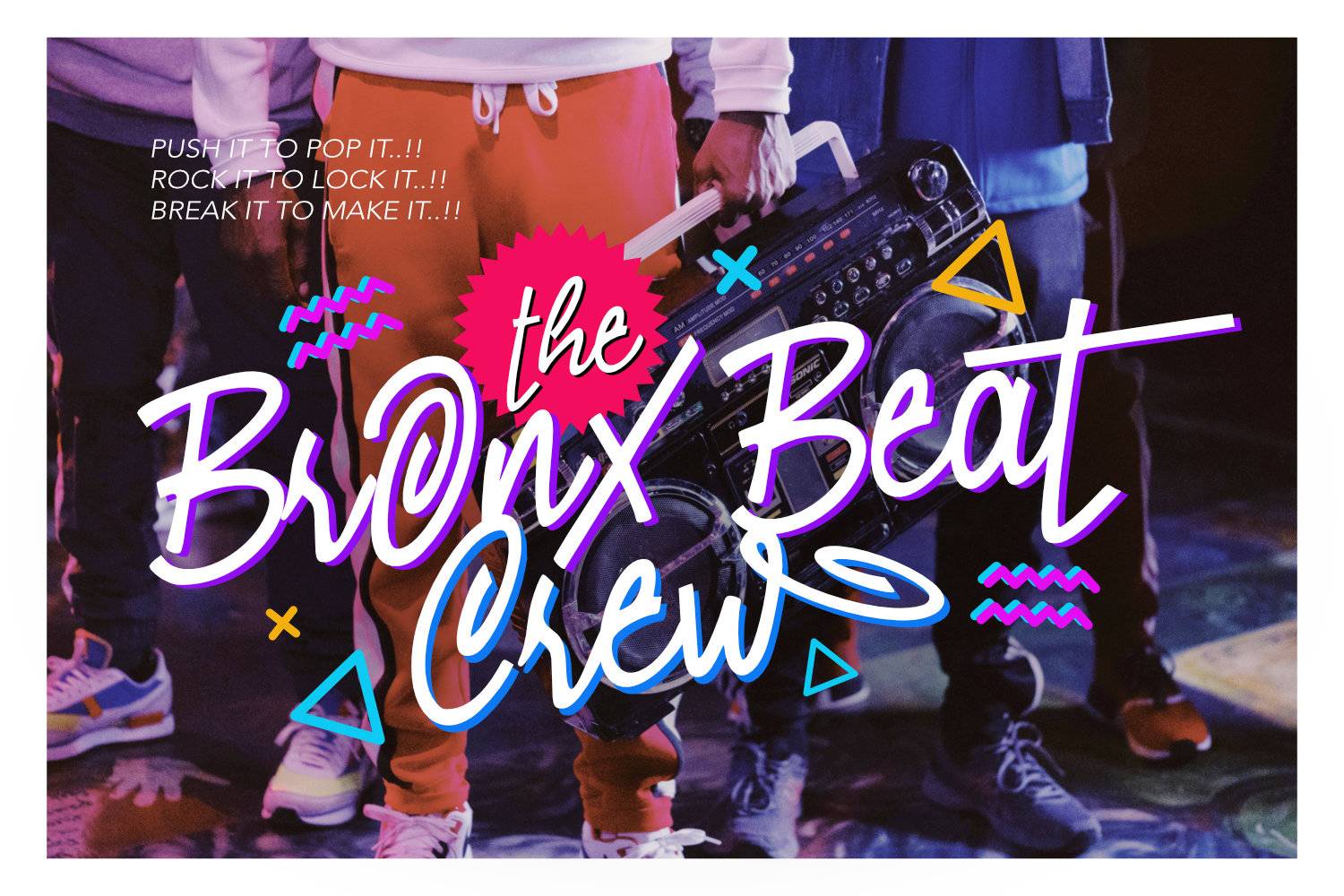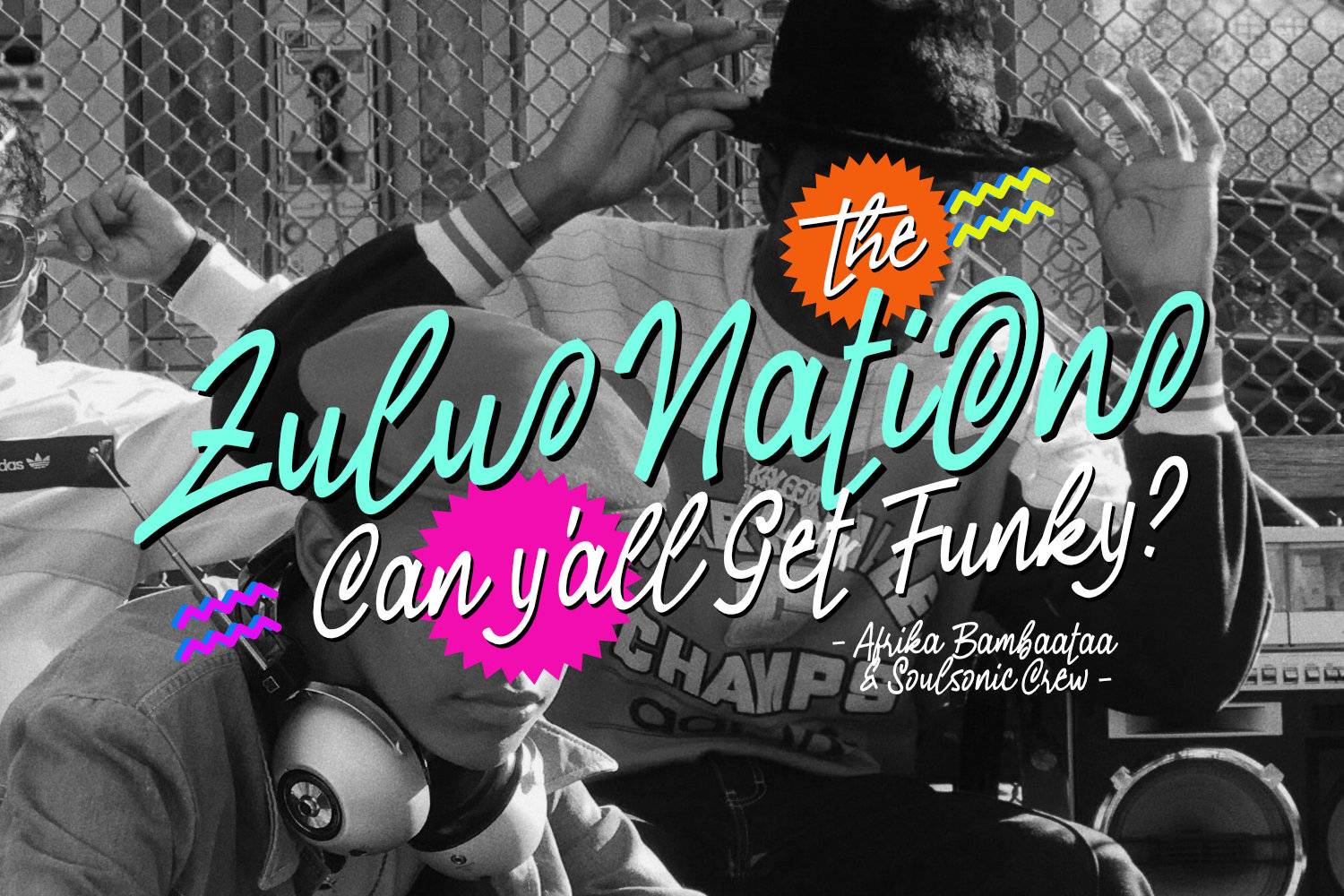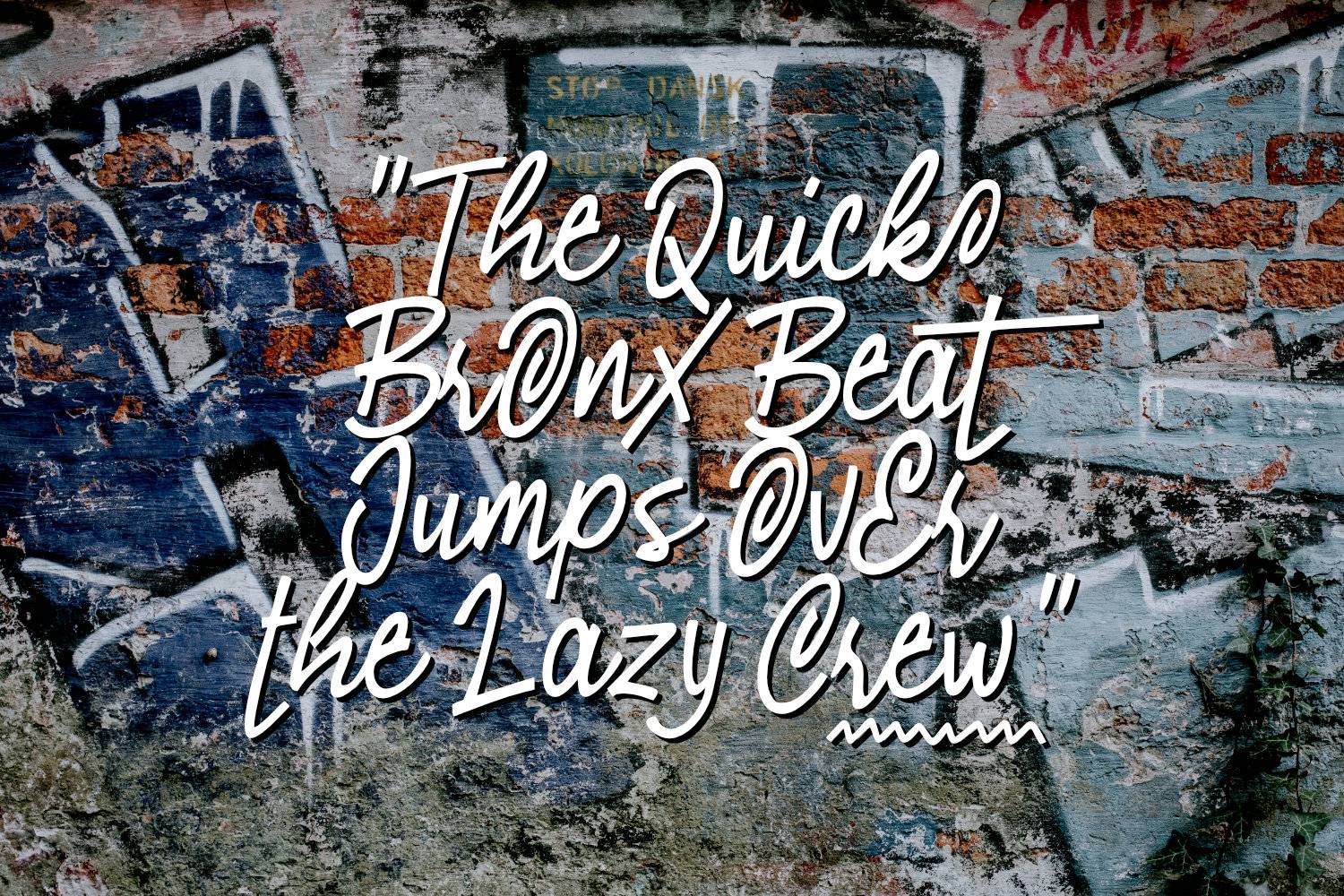
Southern Clan is a lively and elegant script font characterized by its smooth, flowing strokes and playful yet refined personality. It features a medium weight with a slight slant, combining handwritten charm with clear readability, making it ideal for branding, invitations, and creative projects that seek a personal, heartfelt touch. This font works well in headlines and logos where a stylish, approachable script can add warmth and sophistication.
Southern Clan Font
About Southern Clan Font
| Font family | Southern Clan Font |
| Designer | Andhika Pradana, Wahyu Eka Prasetya |